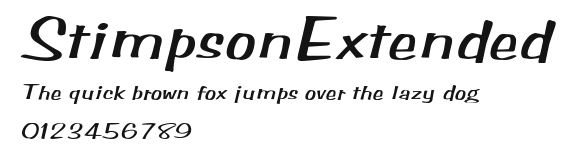
• Font Name: StimpsonExtended
• Font Style: Oblique
• Font ID: Altsys Fontographer 4.1 StimpsonExtended Oblique
• Full Font Name: StimpsonExtended Oblique
• Version: Altsys Fontographer 4.1 5/22/95
• PostScript Name: StimpsonExtendedOblique
About StimpsonExtended.ttf
StimpsonExtended.ttf is a modern, elegant sans-serif font designed for ultimate readability and visual harmony. Perfect for branding, headlines, web design, and print materials.